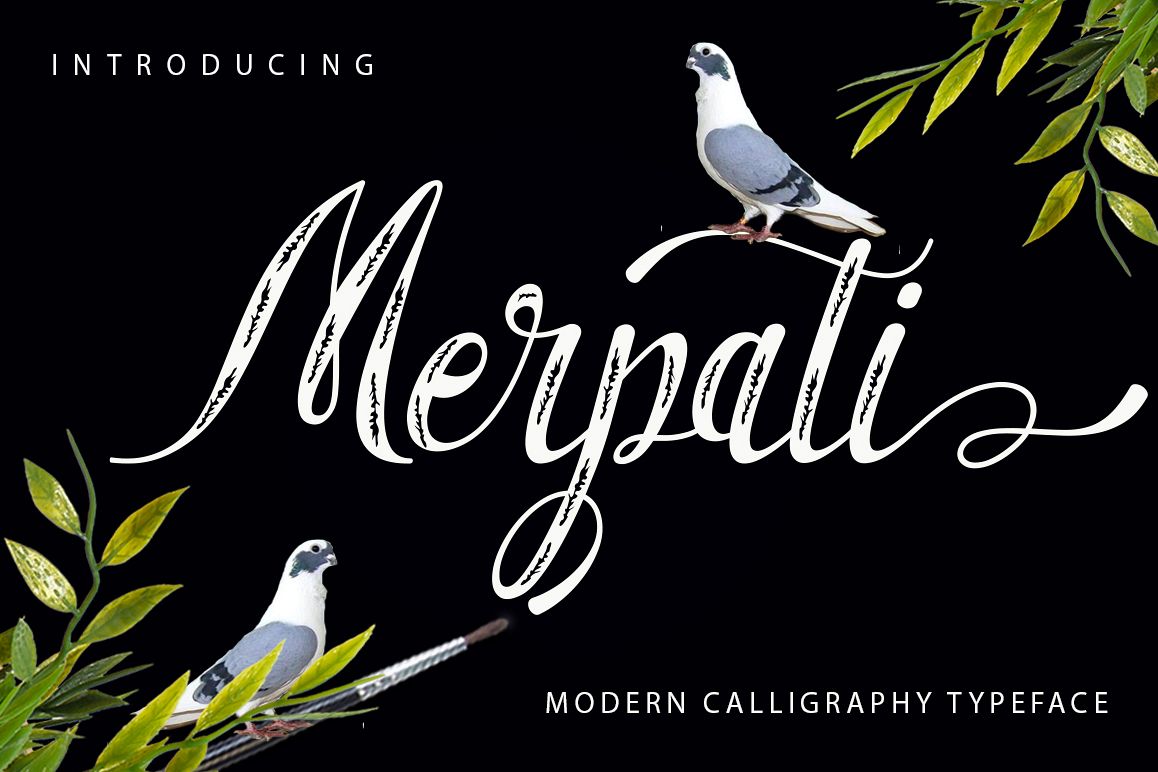
Merpati
Merpati is a font scrip,brush, so, font script that is beautiful and unique, it is a model of modern calligraphy typefaces, in combination with a calligraphy writing style.File font Wolfsbane Include ;